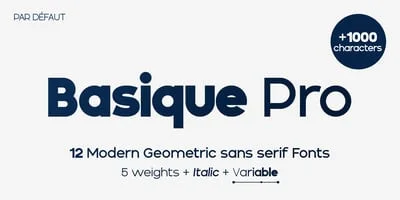
Basique Pro Font
The Basique Pro Font is ideal for professional business documents, corporate annual reports, financial statements, legal contracts, academic publications, government communications, insurance materials, and formal correspondence. This reliable typeface excels in applications where clarity and professional credibility are paramount, making it perfect for organizations that need to communicate complex information with absolute precision and trustworthy presentation across all business contexts.
What makes Basique Pro Font exciting is its exceptional versatility and professional refinement that ensures consistent performance across every business application. The font's carefully optimized letterforms and superior readability create an atmosphere of competence and reliability, making it ideal for enterprises that want to project established authority and meticulous attention to detail. Its neutral yet sophisticated character design provides the perfect foundation for professional communications that demand both clarity and credibility.
The Basique Pro Font family typically includes thin, light, regular, medium, bold, and black weights, complemented by matching italic styles and comprehensive multilingual character sets. Many versions feature advanced OpenType features, professional numerals, small caps, and specialized business symbols that enhance functionality for complex corporate documentation and international business communications requiring exceptional typographic precision.
For designers working on professional projects that demand unwavering reliability and business-focused functionality, Basique Pro Font provides outstanding versatility. Its ability to maintain excellent readability while projecting professional authority makes it an essential tool for corporate communications, financial documents, and any project requiring typography that embodies business excellence and professional sophistication across diverse application contexts.